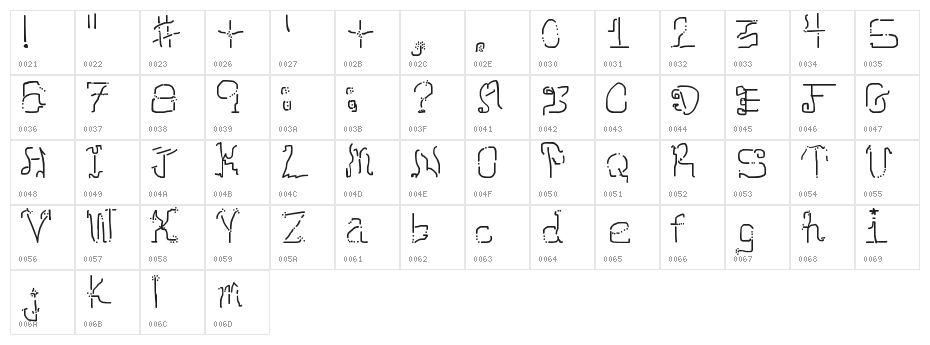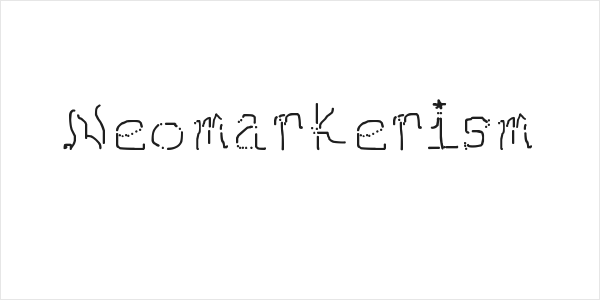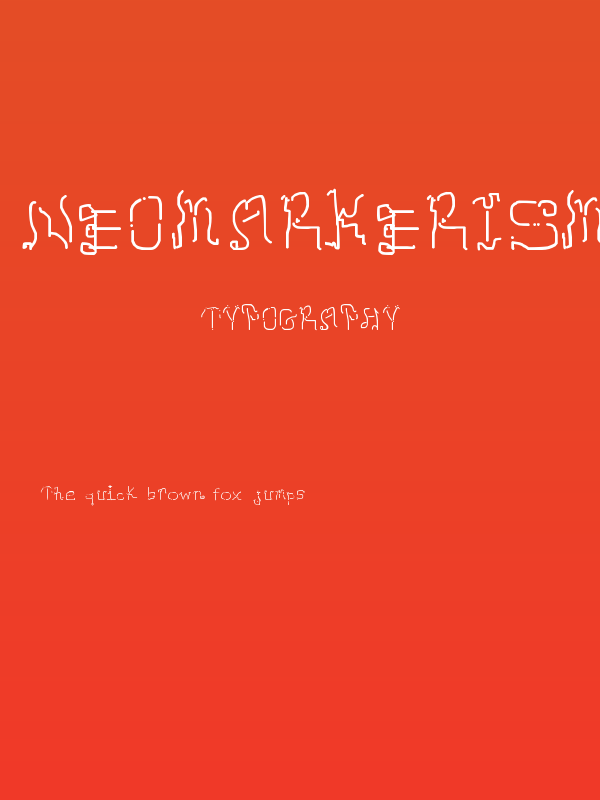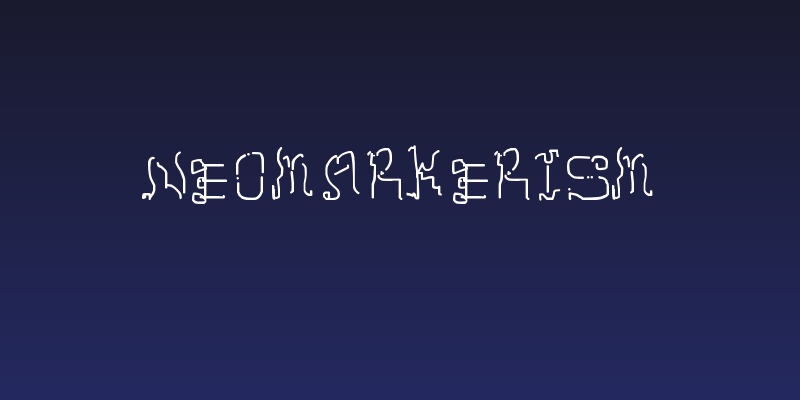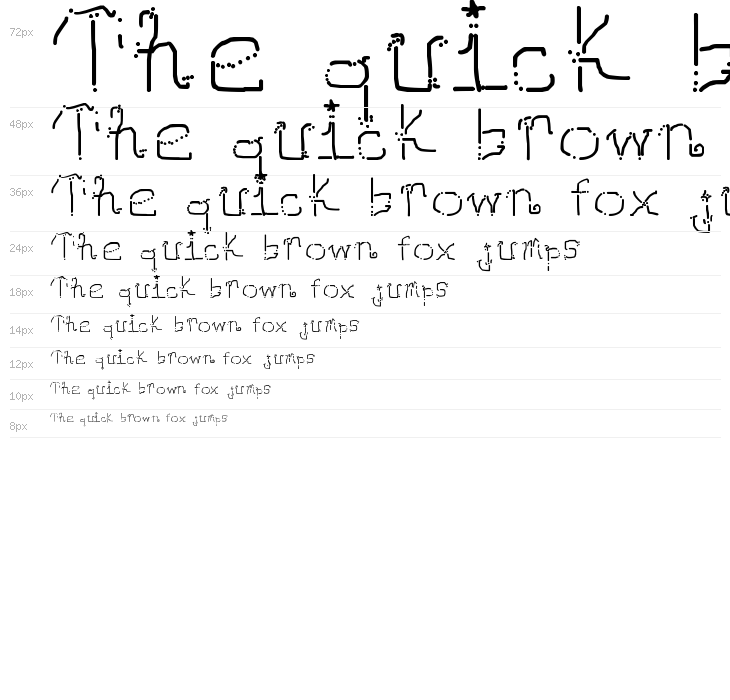
Neomarkerism Font
Neomarkerism Description
This font features a unique, artistic style with a hand-drawn appearance. The characters are composed of thin lines with small, circular accents that give it a dotted effect. The uppercase letters have a playful, almost whimsical quality, while the lowercase letters maintain a consistent style with slight variations in line thickness. Numbers and special characters follow the same design principles, making the font cohesive across all elements. The overall look is modern and experimental, suitable for creative projects that require a distinctive and eye-catching typeface.
| Use Case | Headlines, Artistic projects, Branding |
| Proposed Projects | Ideal for creative projects such as posters, album covers, and artistic branding materials. |